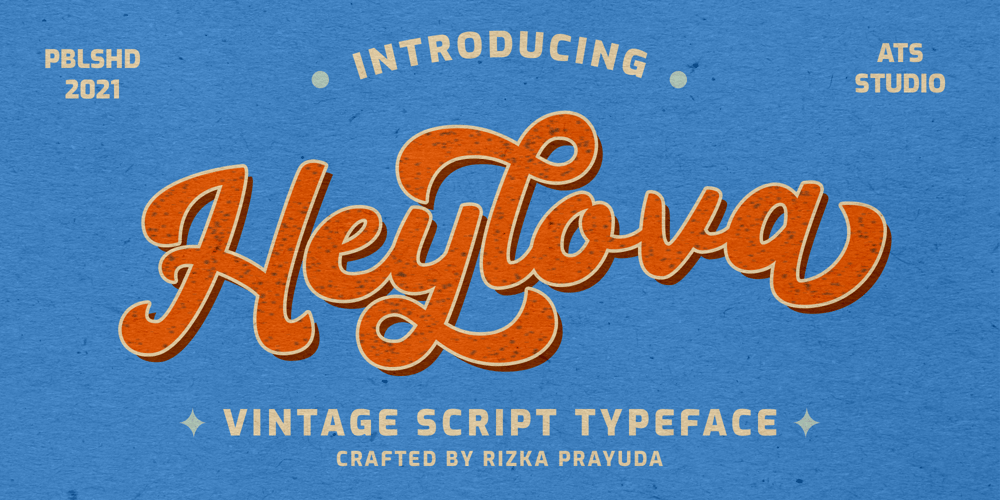
Heylova Script
Heylova Script font
Heylova Script Font Family was designed by Rizka Prayuda and published by Atasi Studio. Heylova Script contains 1 styles and family package options. HEYLOVA SCRIPT is a vintage script typeface with a groovy retro look. HEYLOVA SCRIPT is ready and Perfectly fit for your logo designs, music projects & social media posts, event poster, brand imagery, product packaging, handwritten quotes, merchandise, etc. More importantly, please don’t hesitate to drop me a message if you have any issues or queries.Feel free to comment & contact me at atasistudio@gmail.com for more information. Thanks for purchasing and have fun! I really hope you enjoy it !